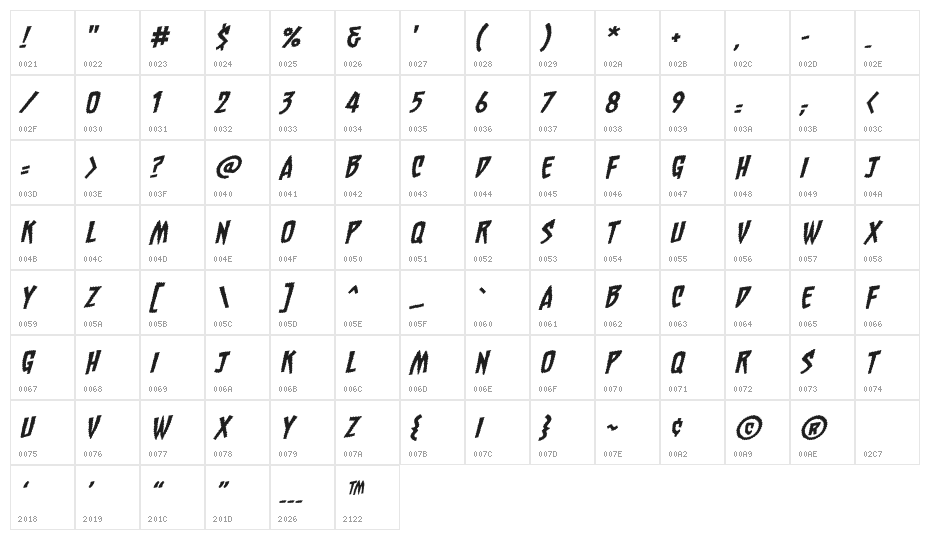
ChainsawzBB-Italic Font
ChainsawzBB-Italic Description
This font features a bold, jagged style that mimics the appearance of a chainsaw cut. The letters have a dynamic, slanted form, giving them an energetic and aggressive look. The uppercase and lowercase letters maintain a consistent style, with sharp edges and a rough texture that adds to the overall rugged aesthetic. Numbers and special characters are designed with the same jagged edges, ensuring a cohesive appearance across all glyphs. This font is particularly striking and eye-catching, making it suitable for projects that require a bold statement.
| Proposed Projects | Ideal for horror-themed designs, edgy posters, Halloween invitations, and any project needing a bold, rugged look. |